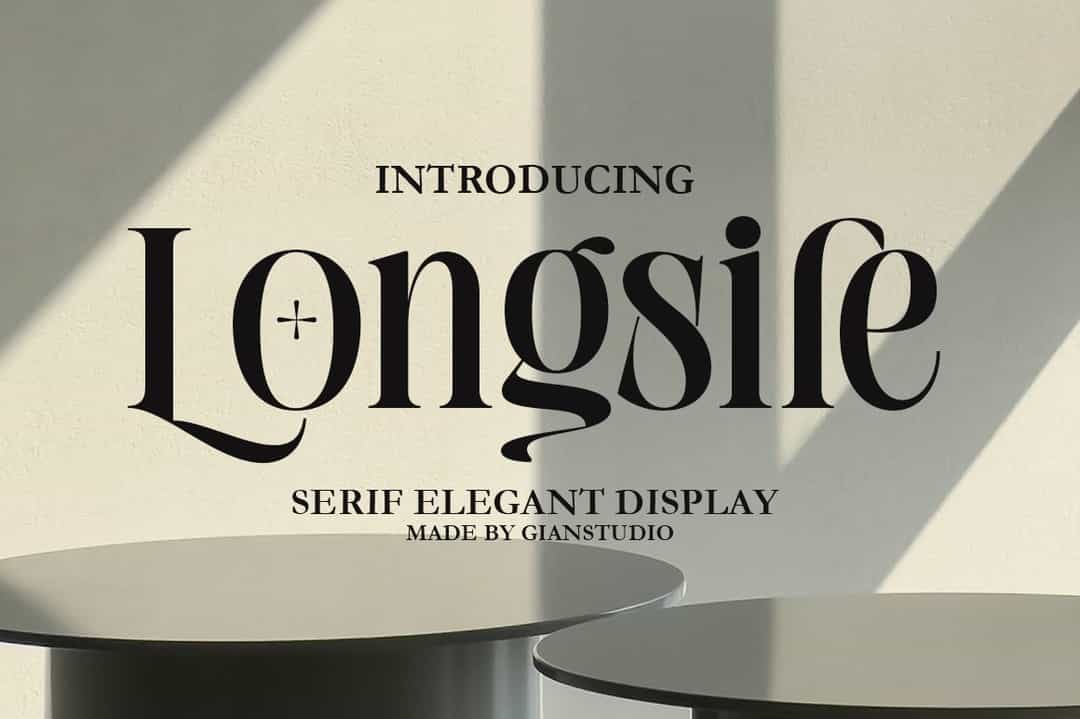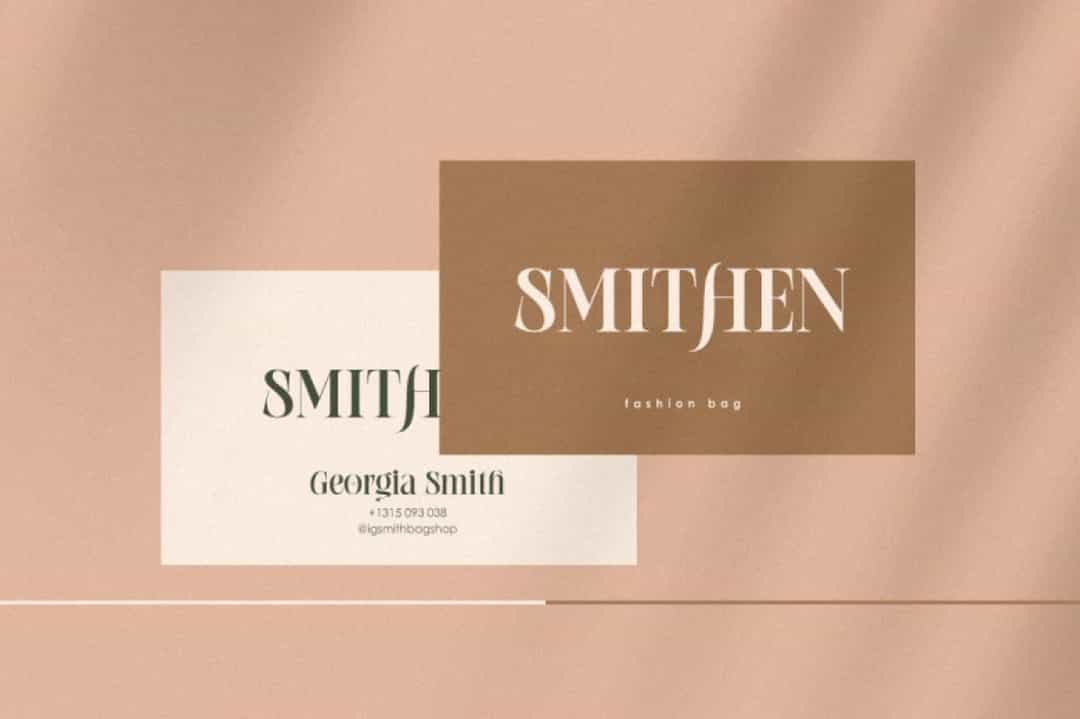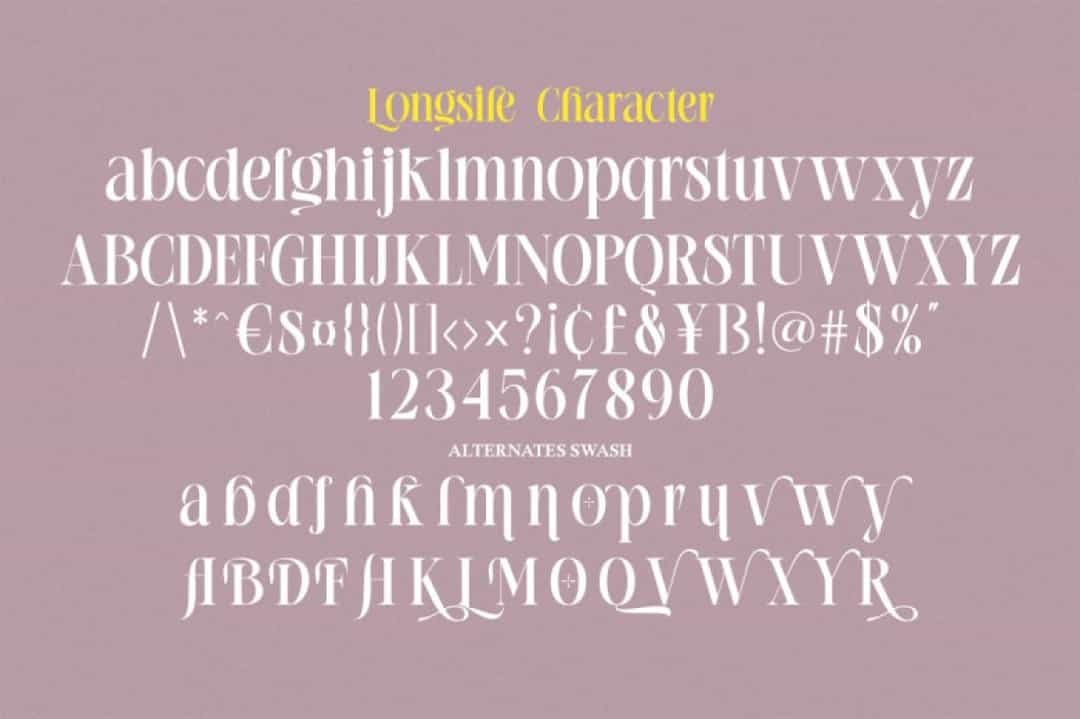
Discover Longsile Font, part of the Serif Display collection—a versatile and unique font perfect for adding a personal touch to your projects. Download it for free and enjoy crafting designs with style, from invitations to social media posts. This font is available exclusively for personal use, giving you the freedom to create without limits. Unlock your creativity with Longsile Font today!
We are delighted to introduce Longsile Display Serif font – an elegant and fresh font designed in natural and fresh Longsile style that features modern touches for an eye-catching and chic appearance. Ideal for logos, invitations, branding advertising photography watermarks social media posts packaging designs label design wedding stationary special events any other event that needs an atmospheric backdrop this font makes an impressive first impression!